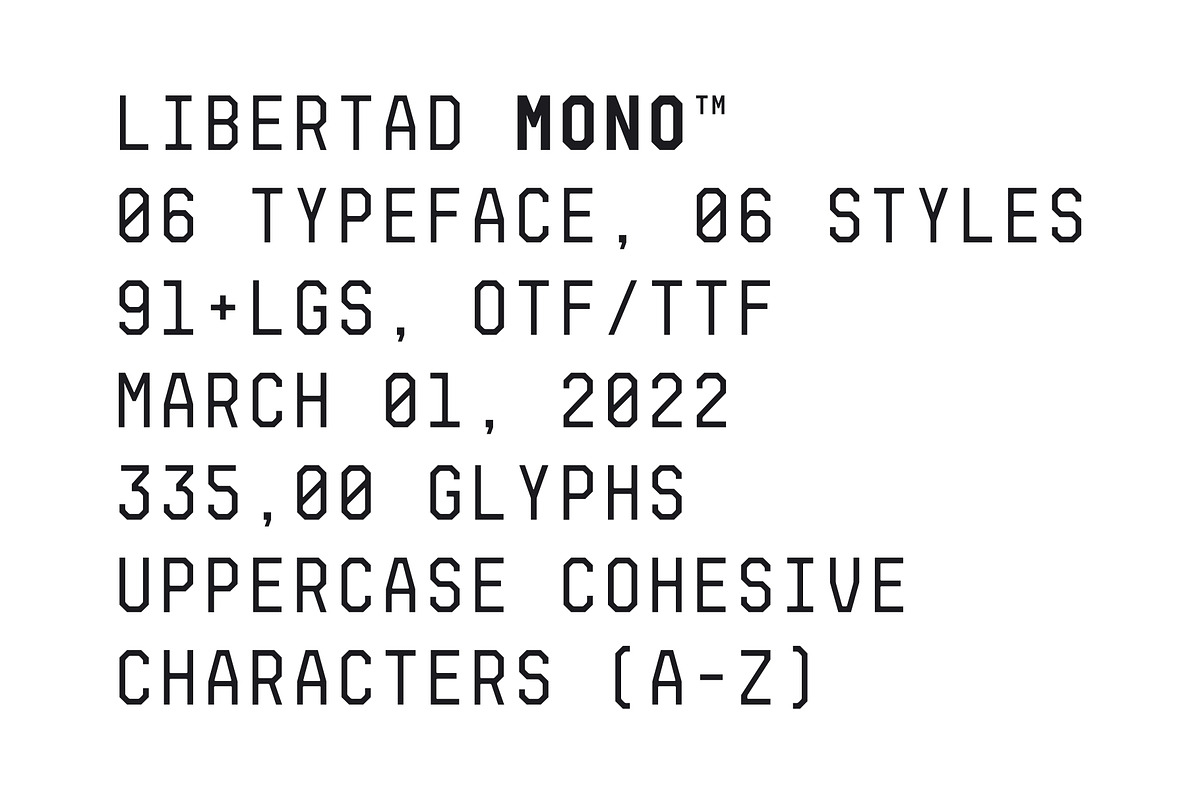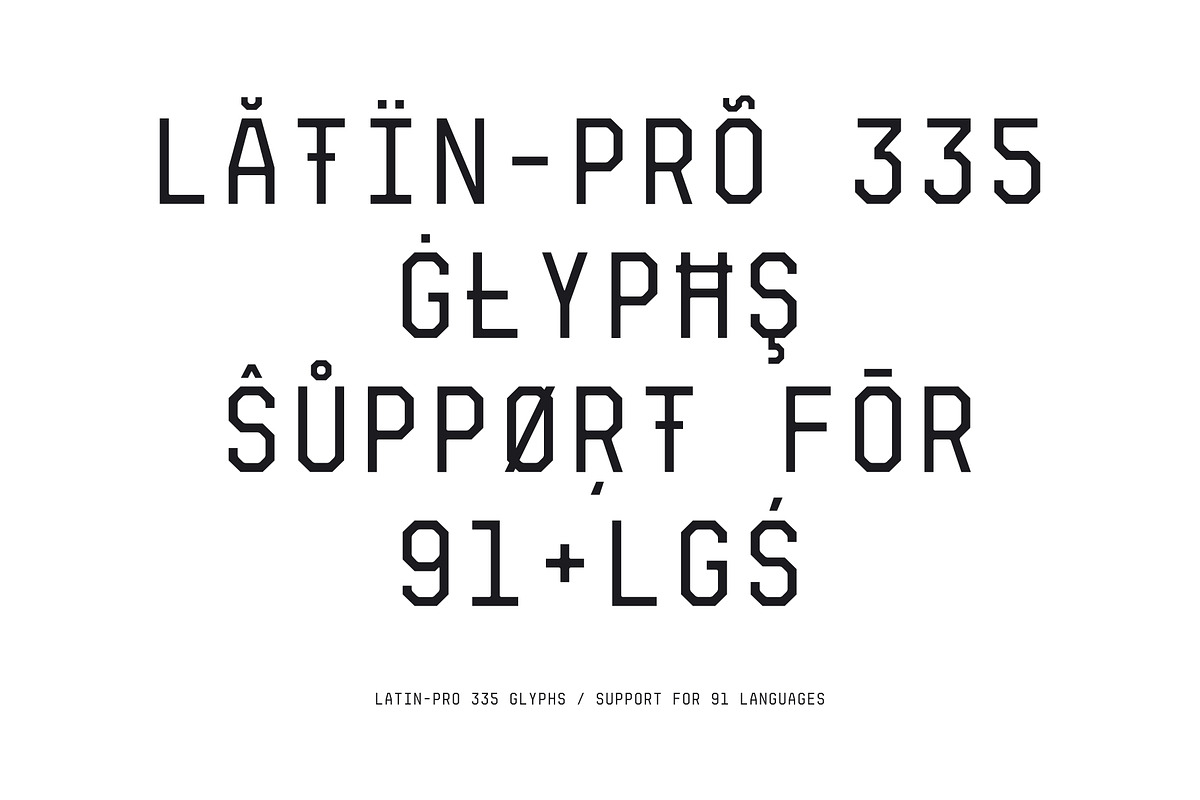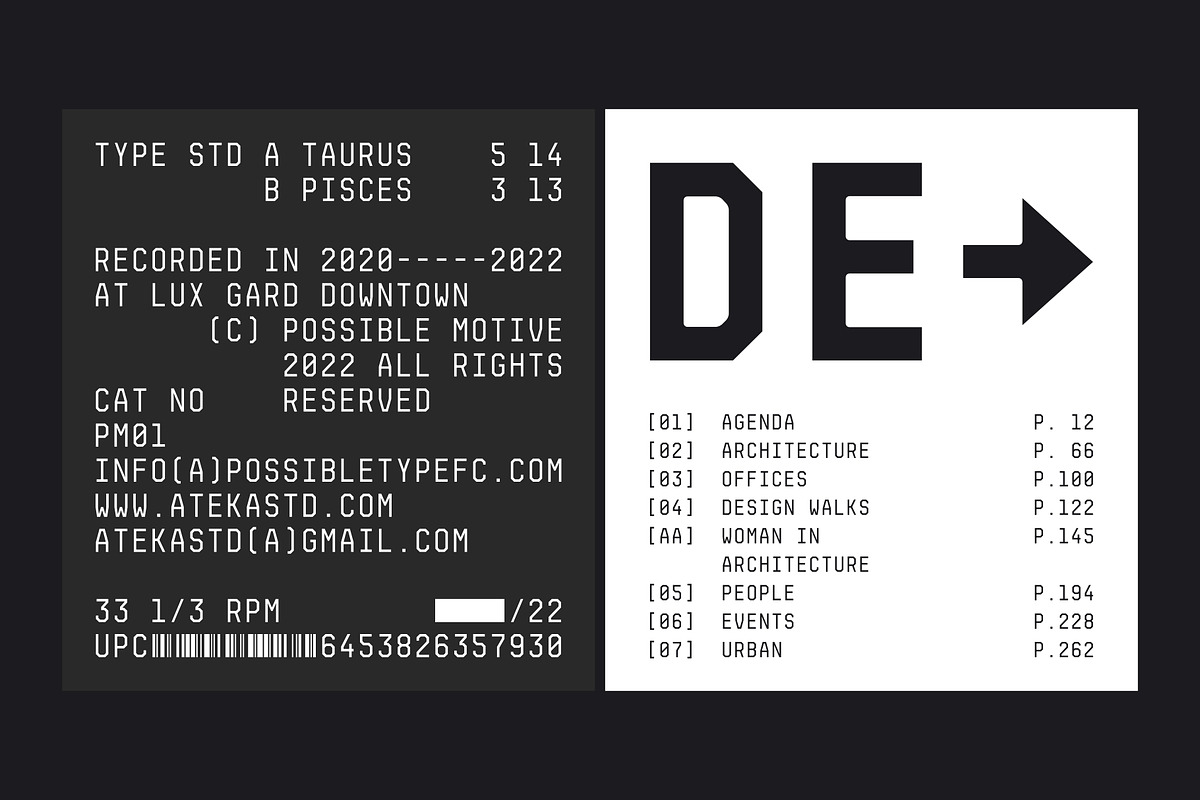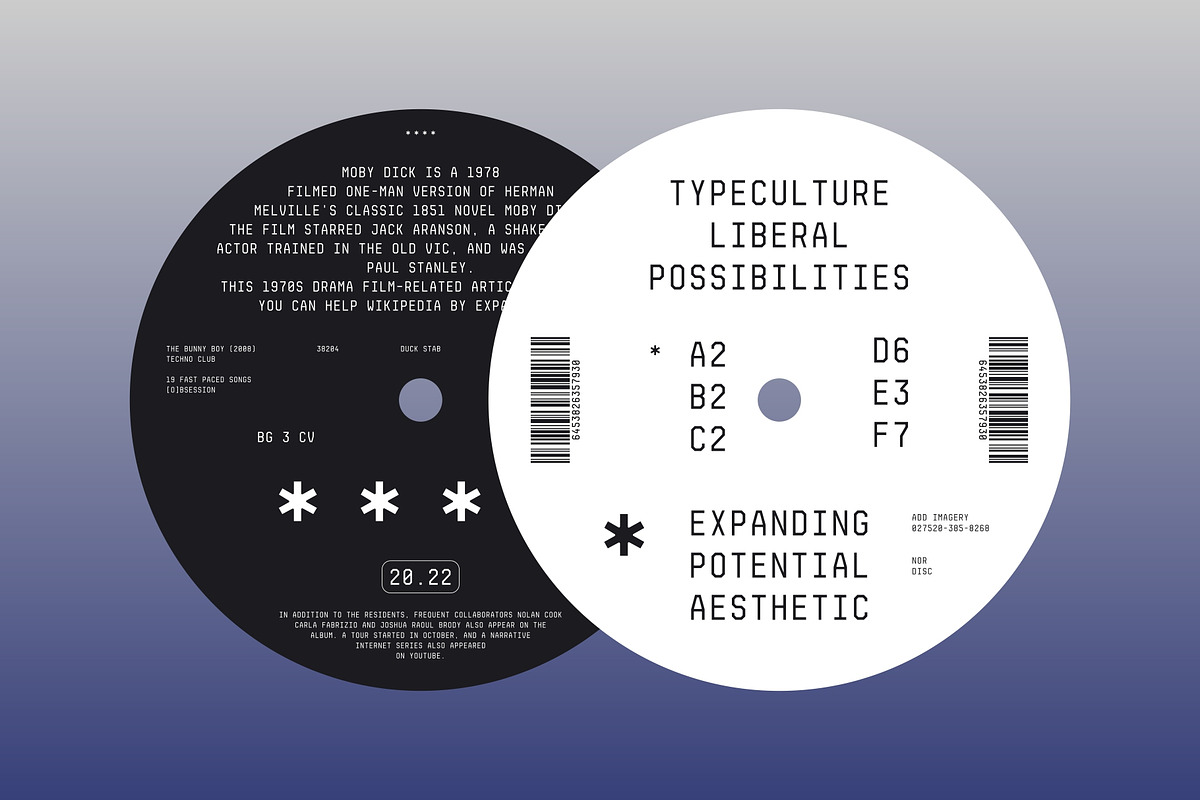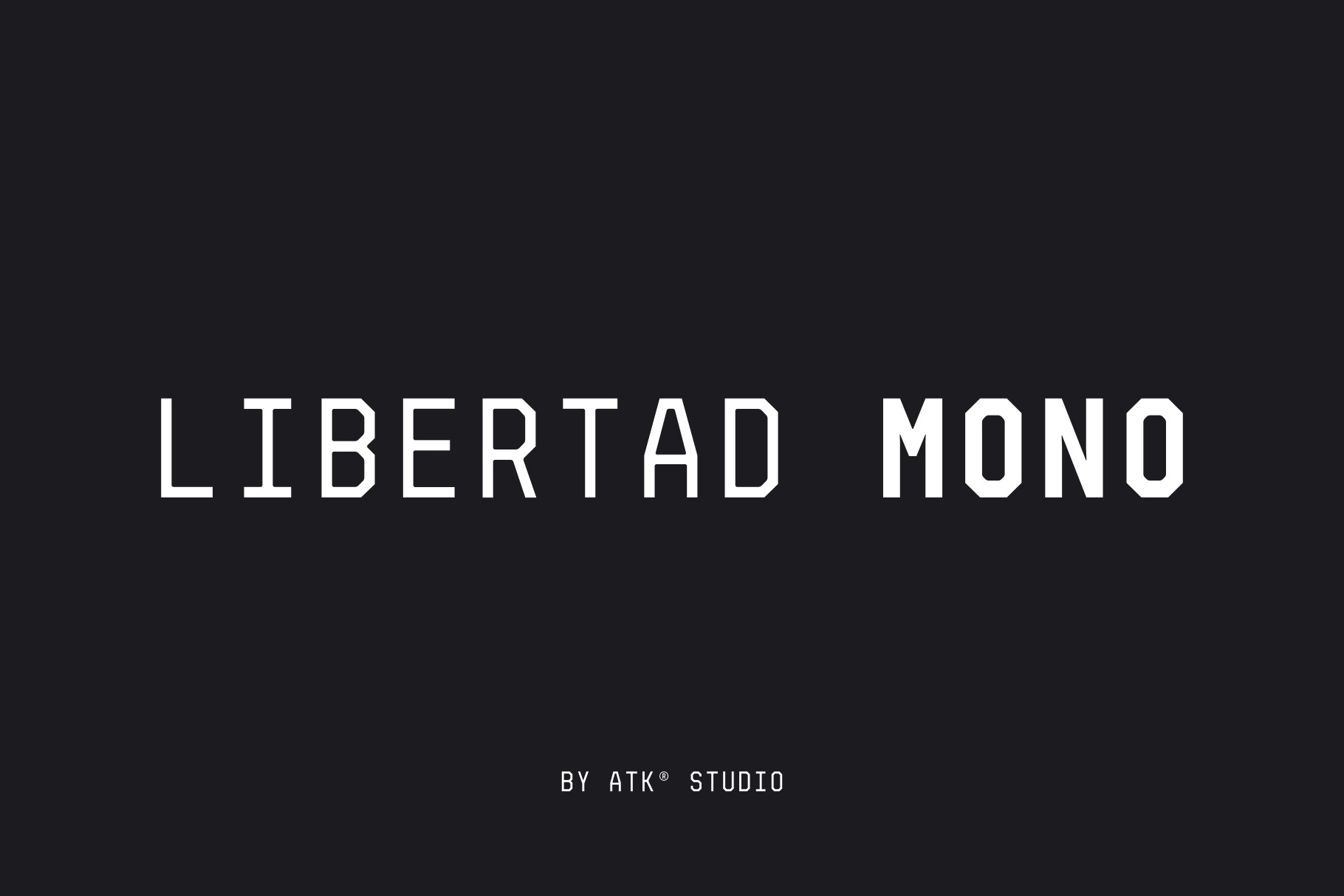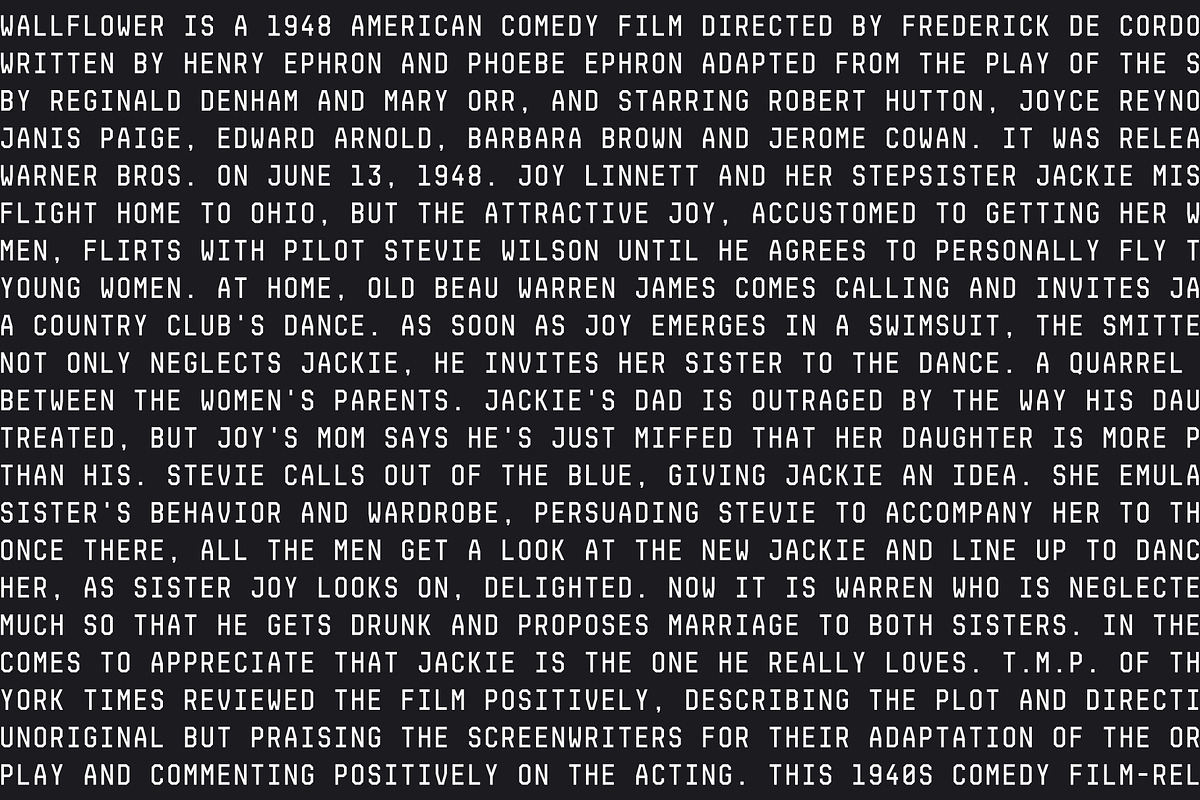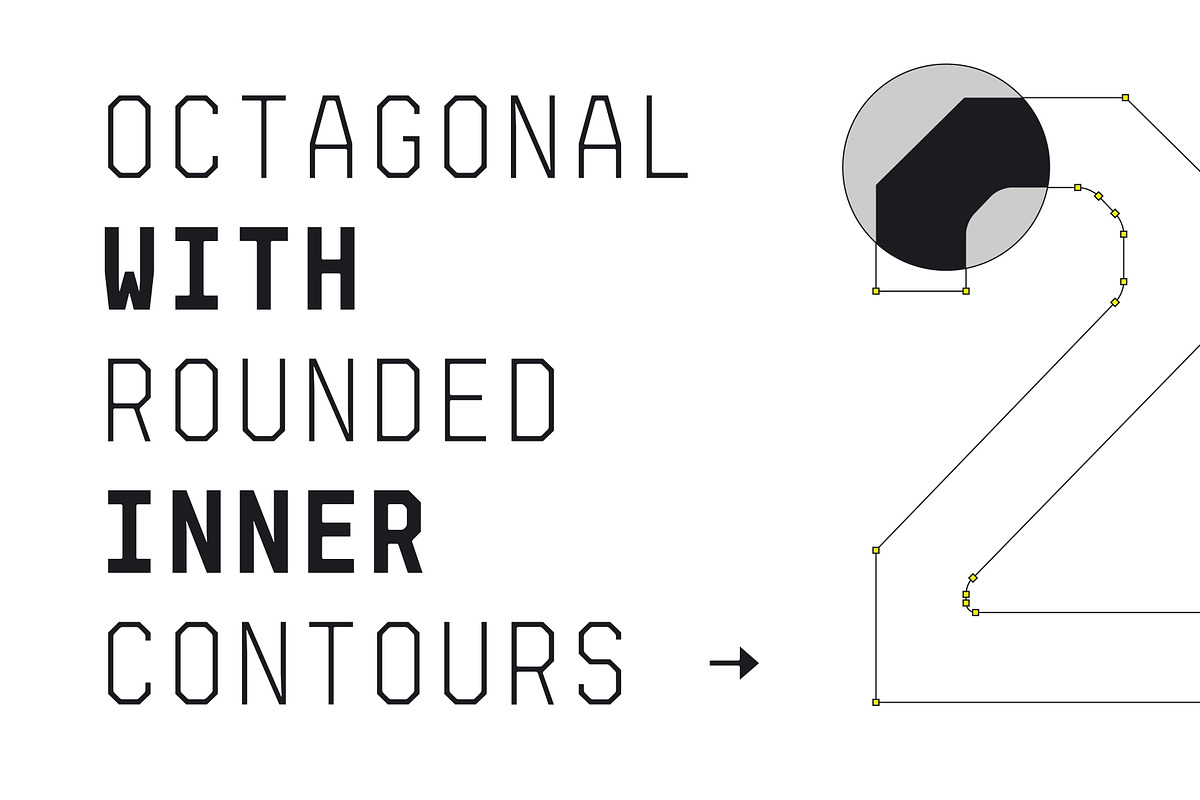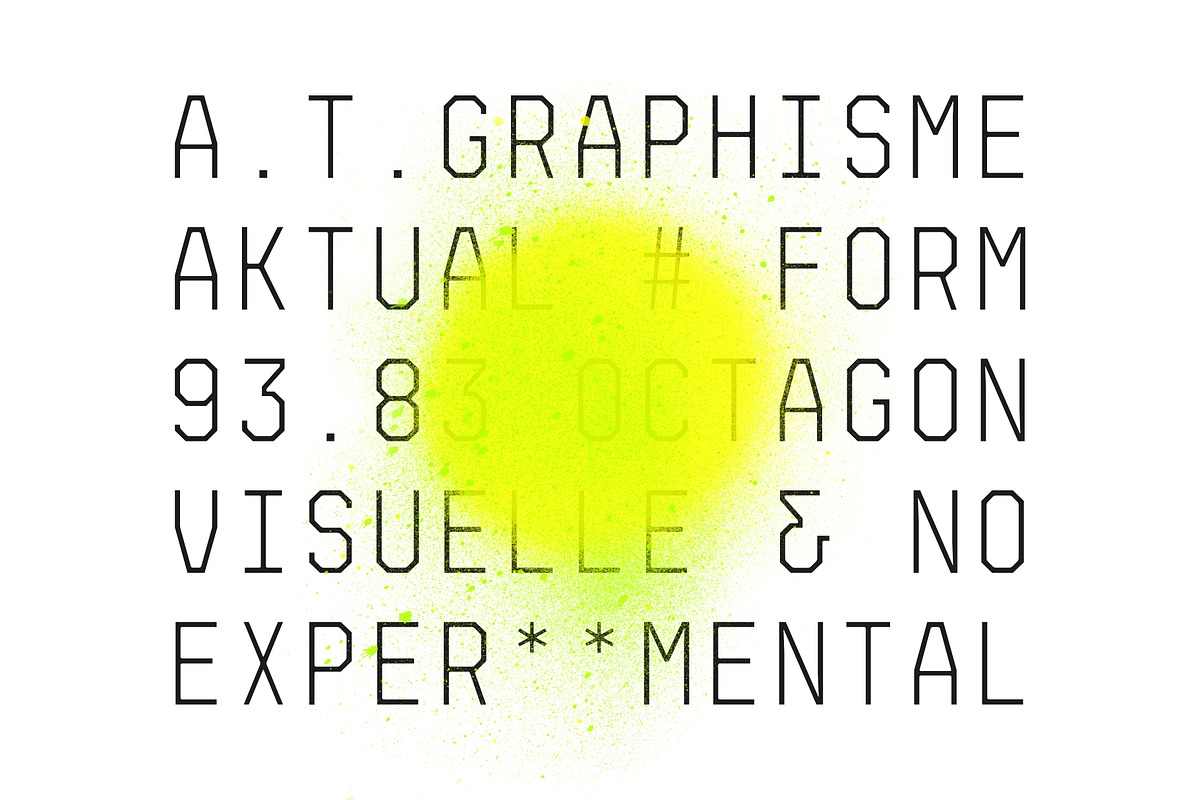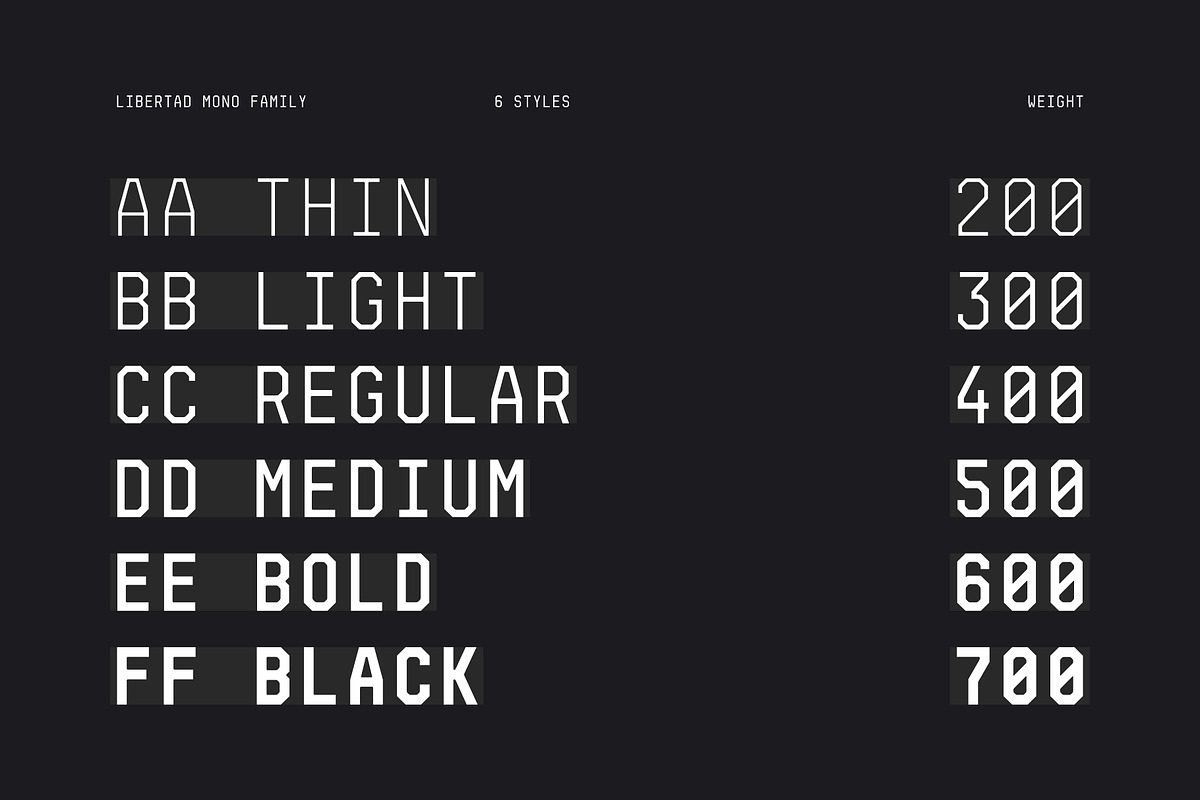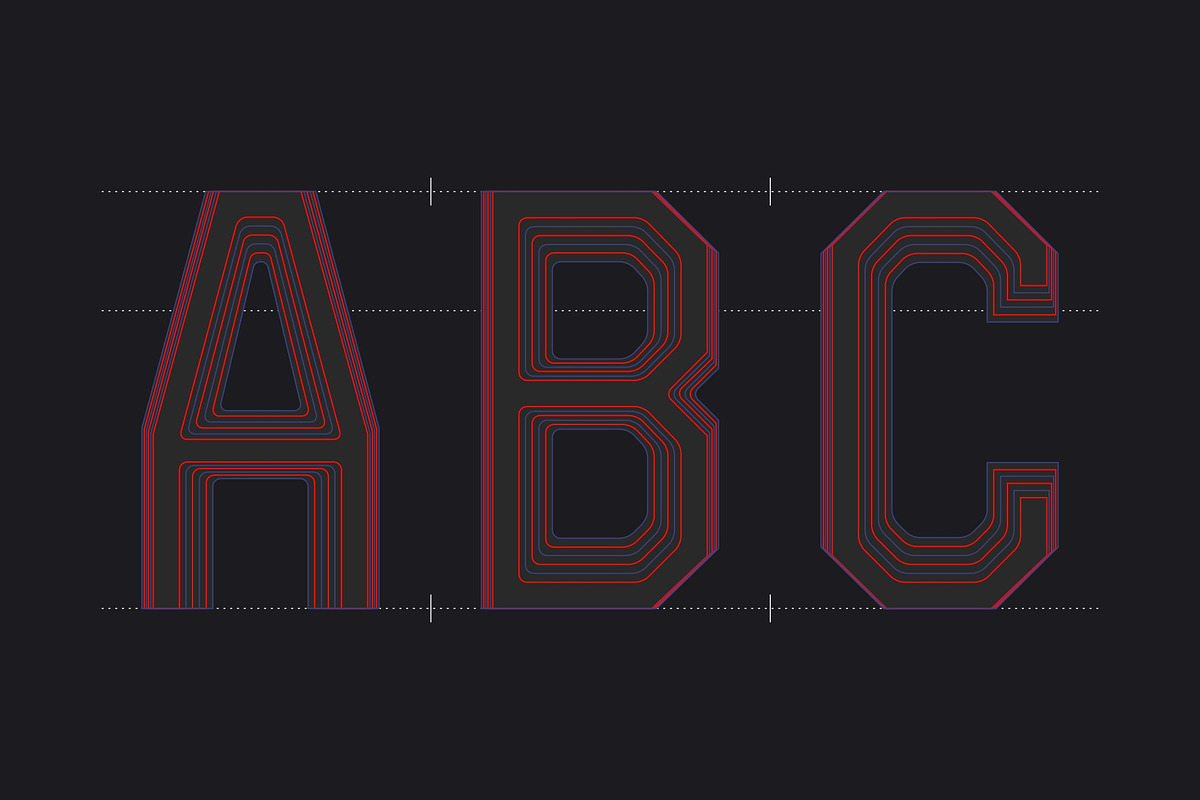
A new dynamic and industrial display font with octagonal shape and rounded inner contours. Constructed with a modular system. It includes a full set of letters (uppercase), numerals, and symbols. Libertad Mono family comes with 6 weights, from Thin to Black. Designed by Radinal Riki Mutaqin. This type features a Latin Pro character set, covering multiple languages written with the Latin script.